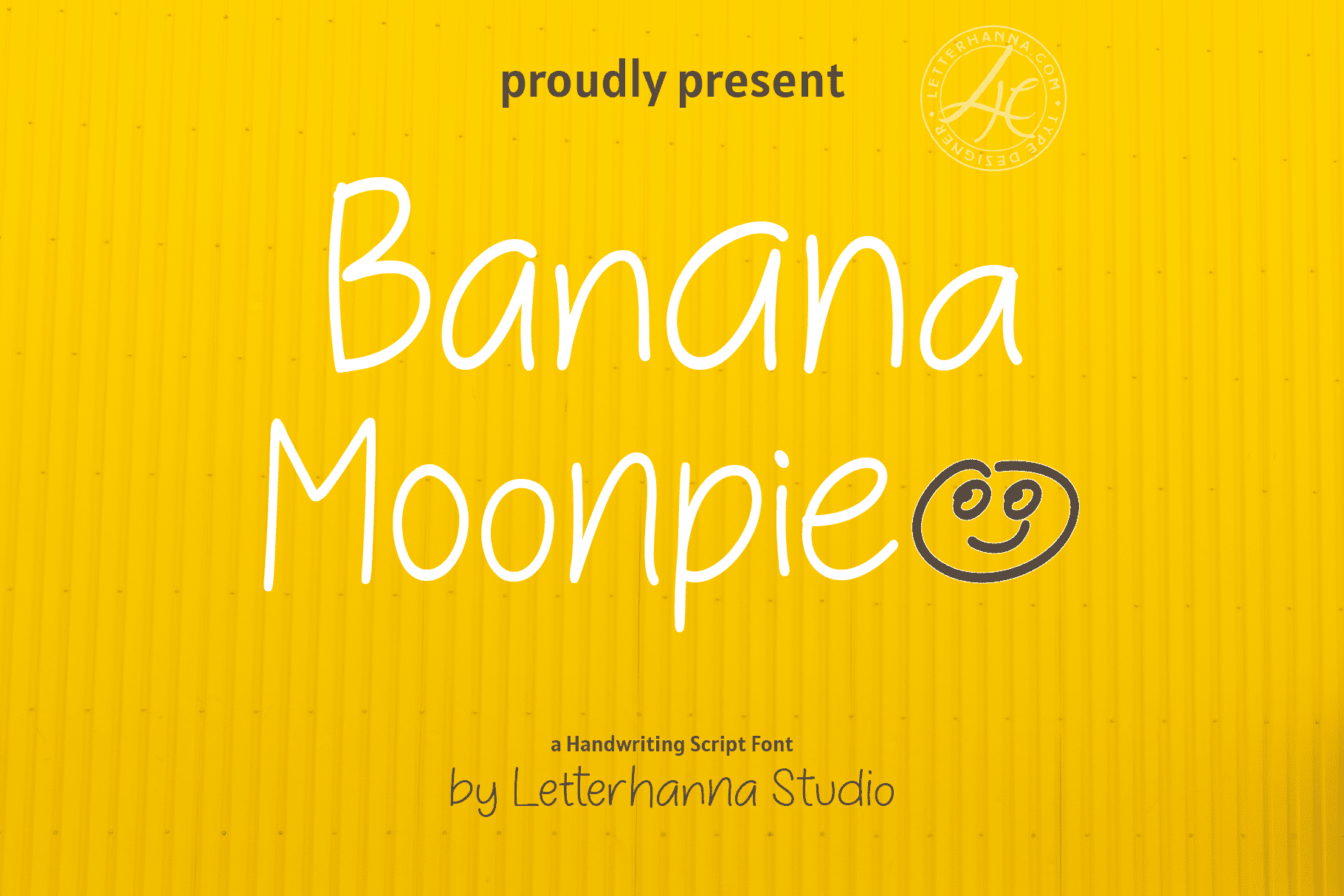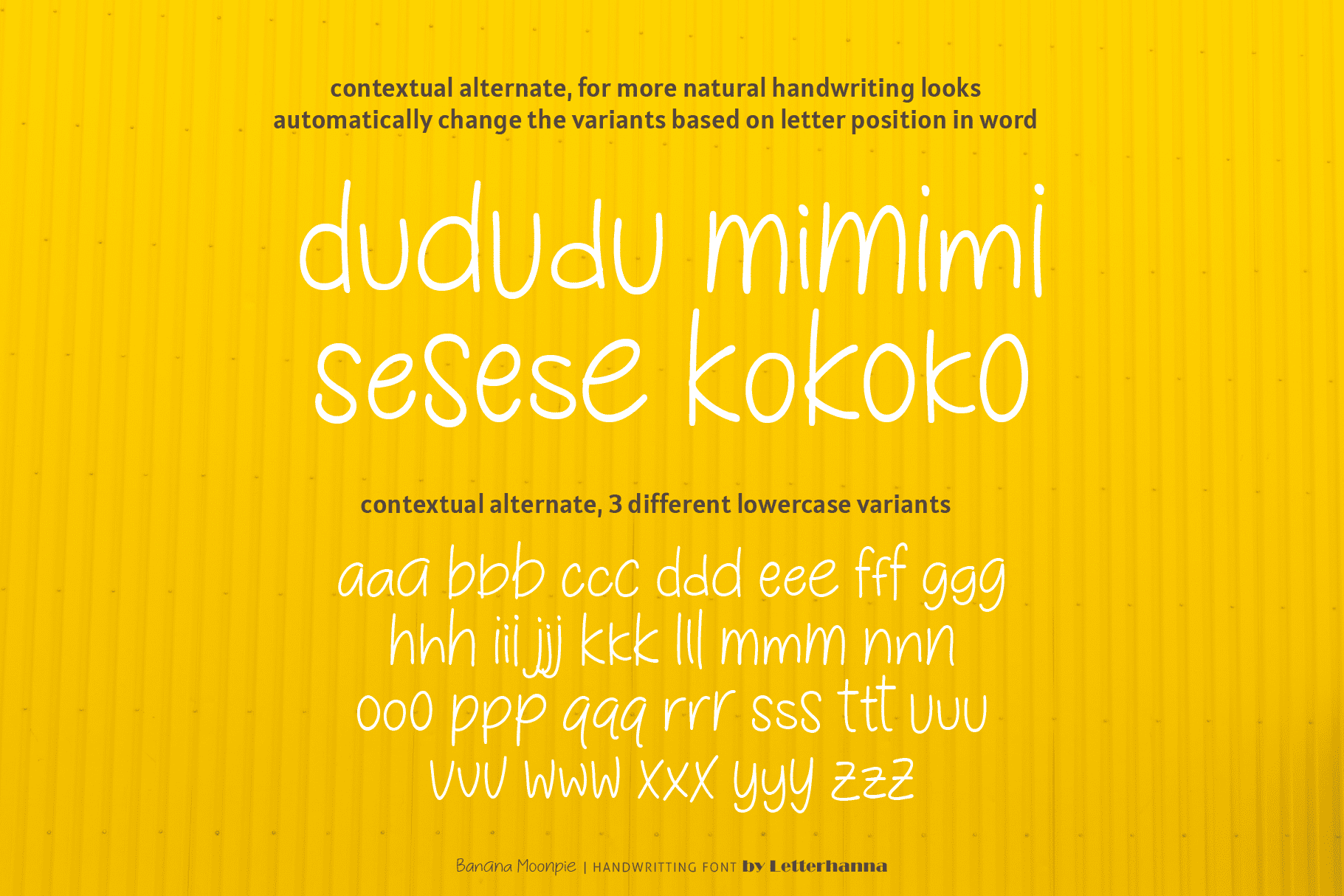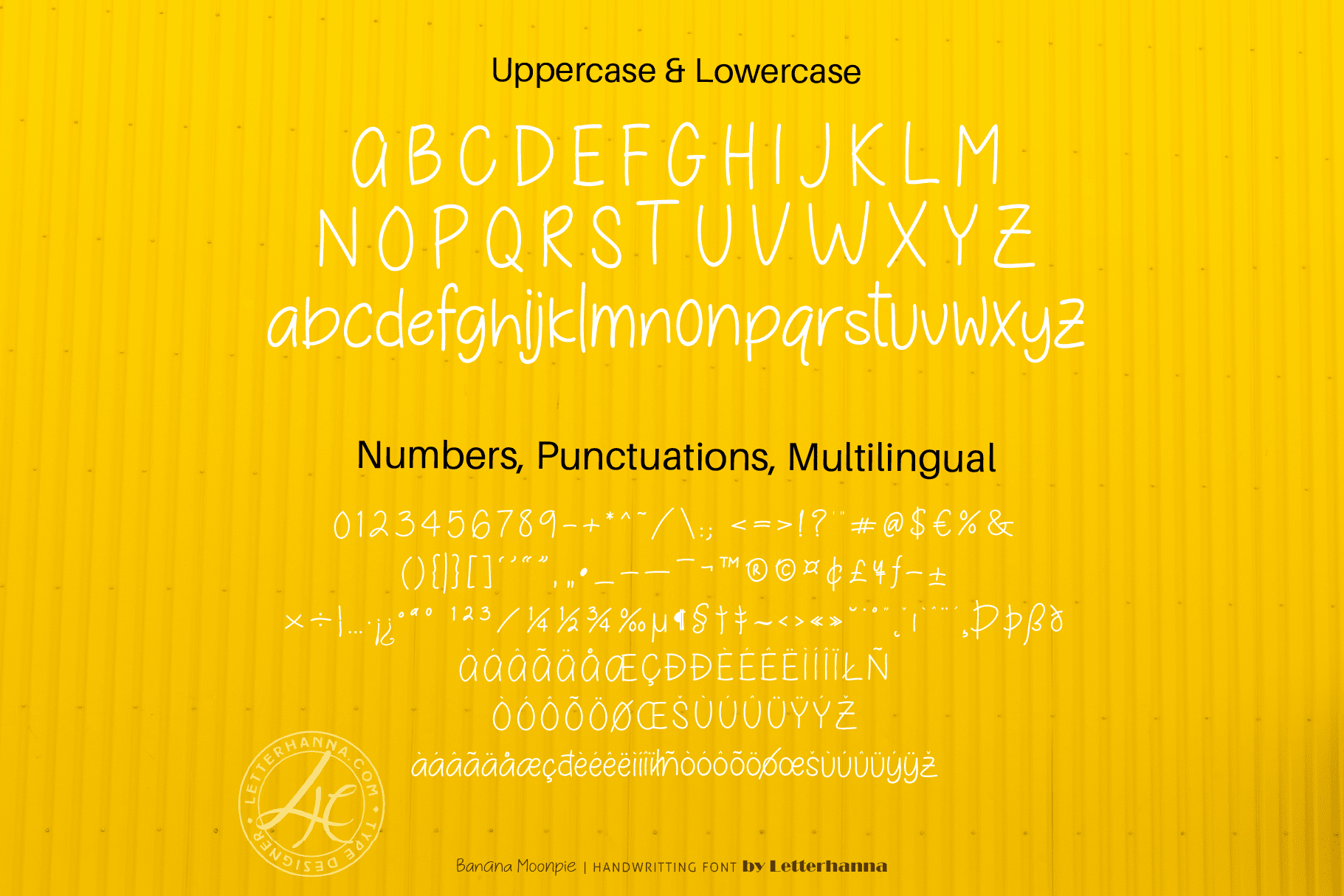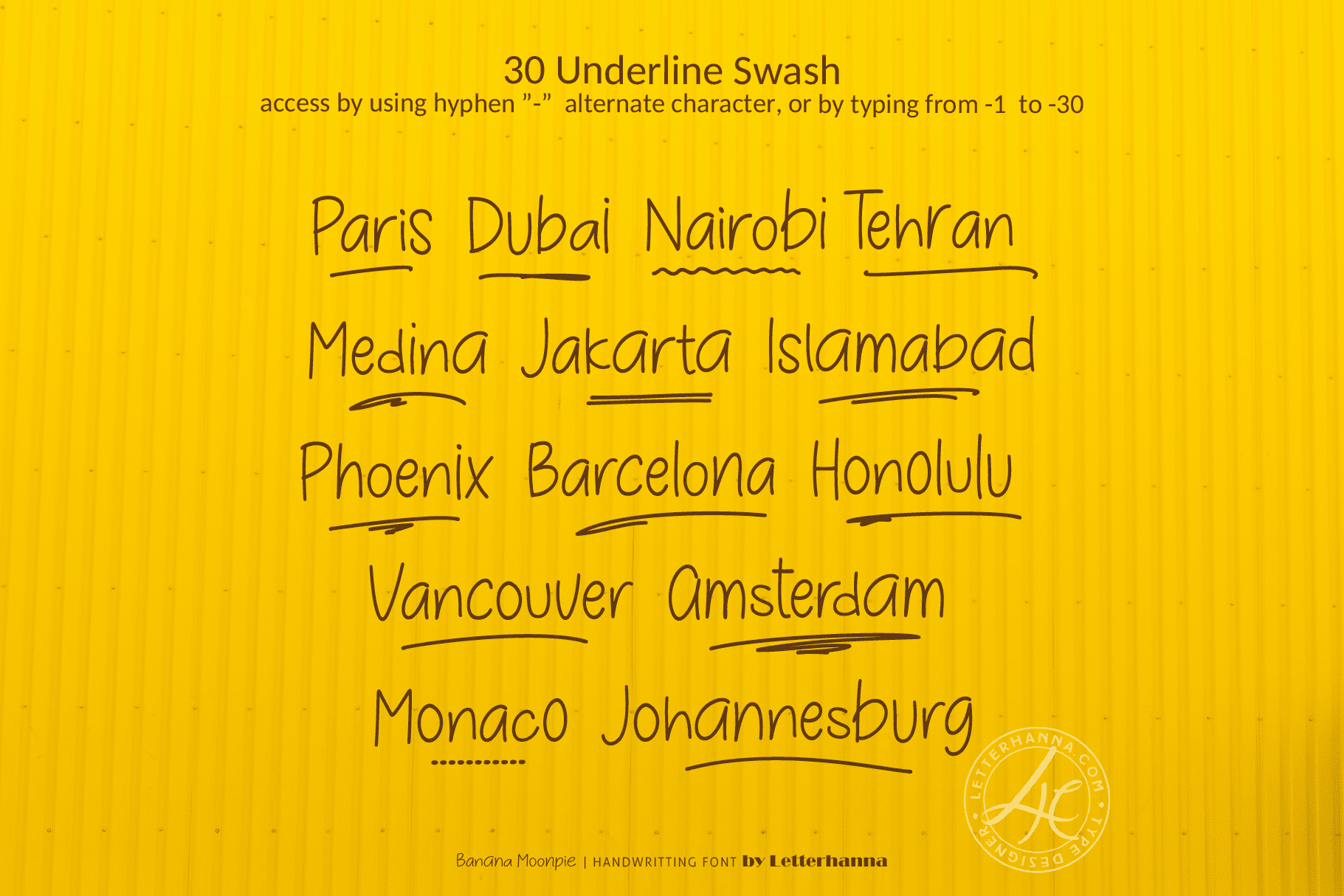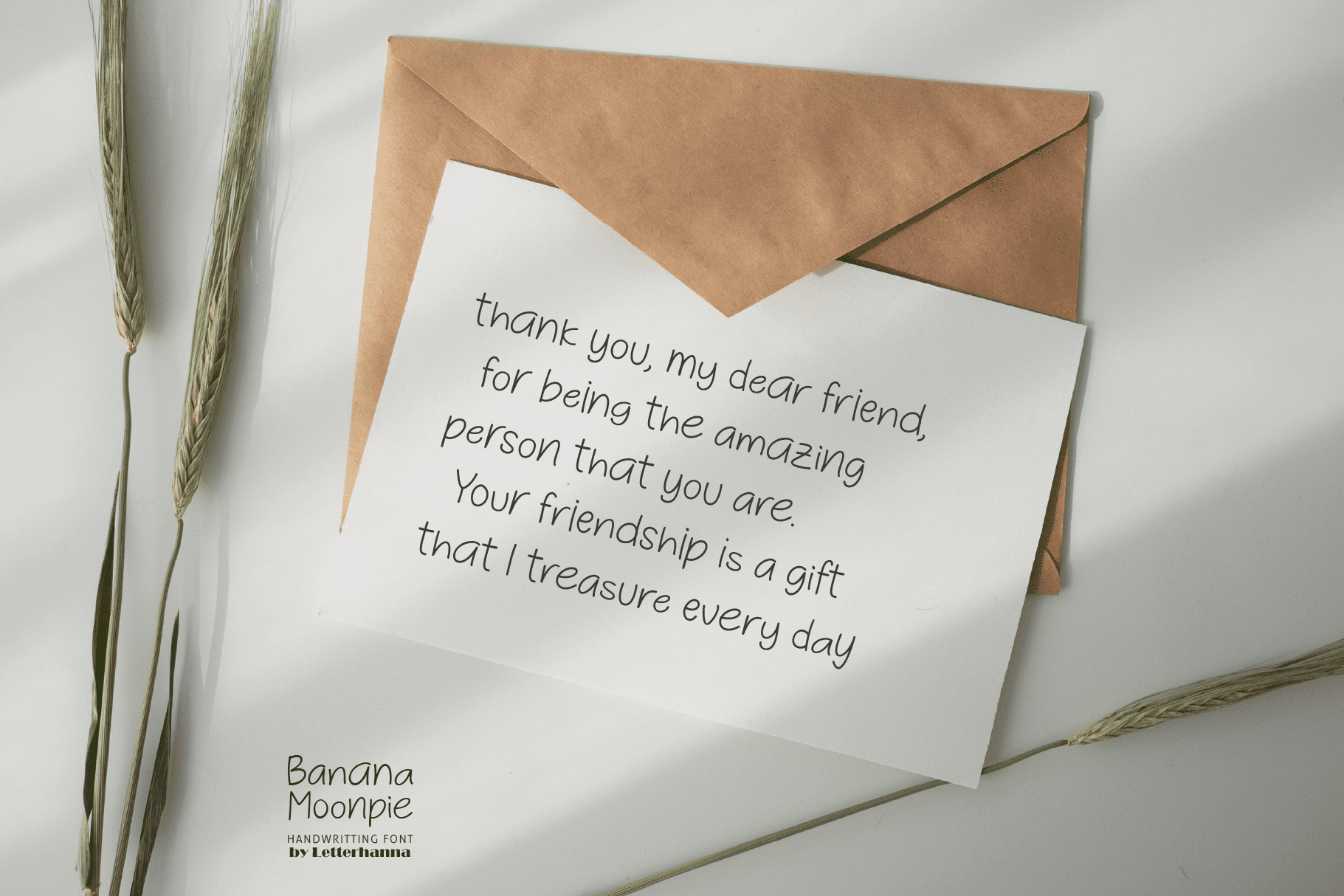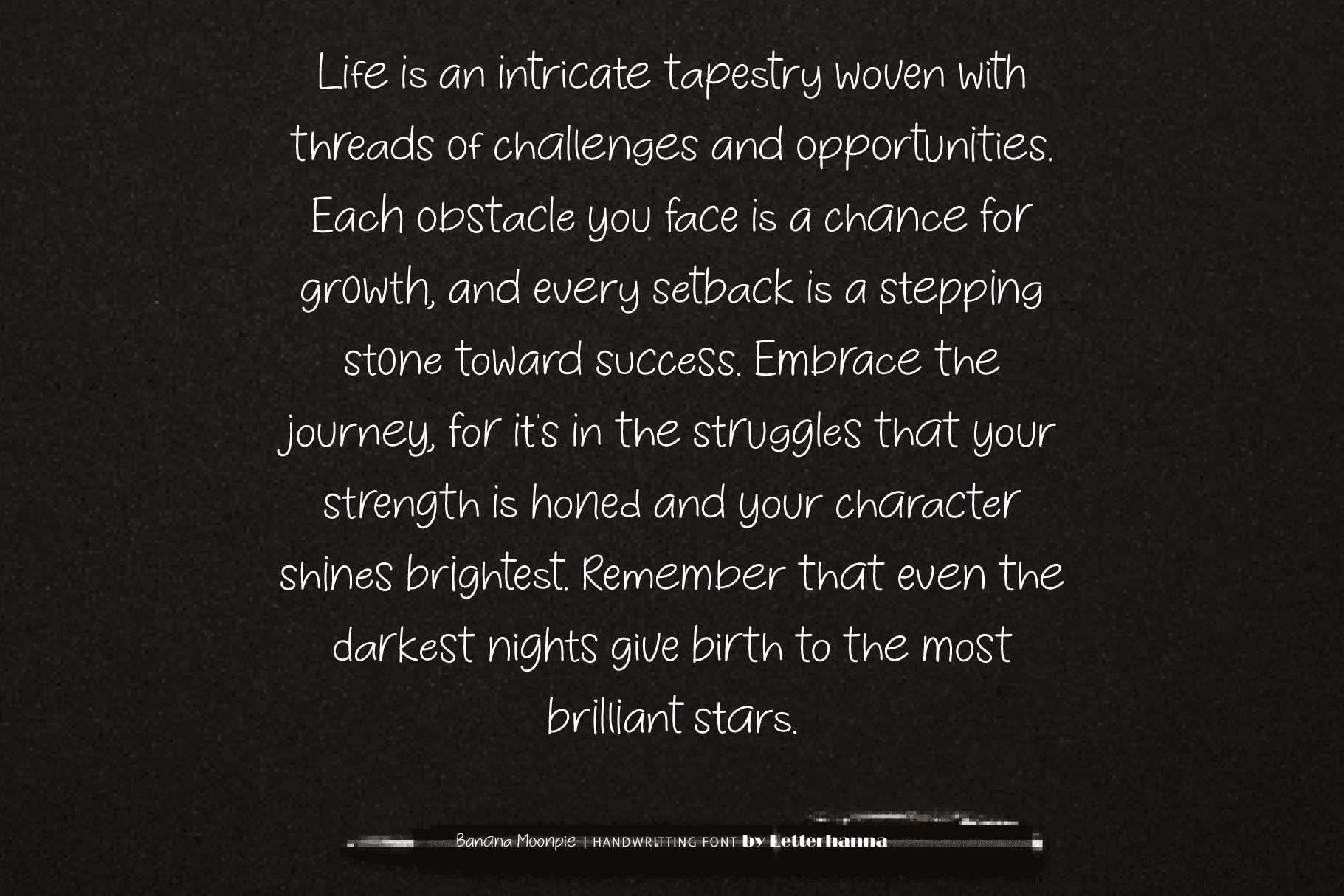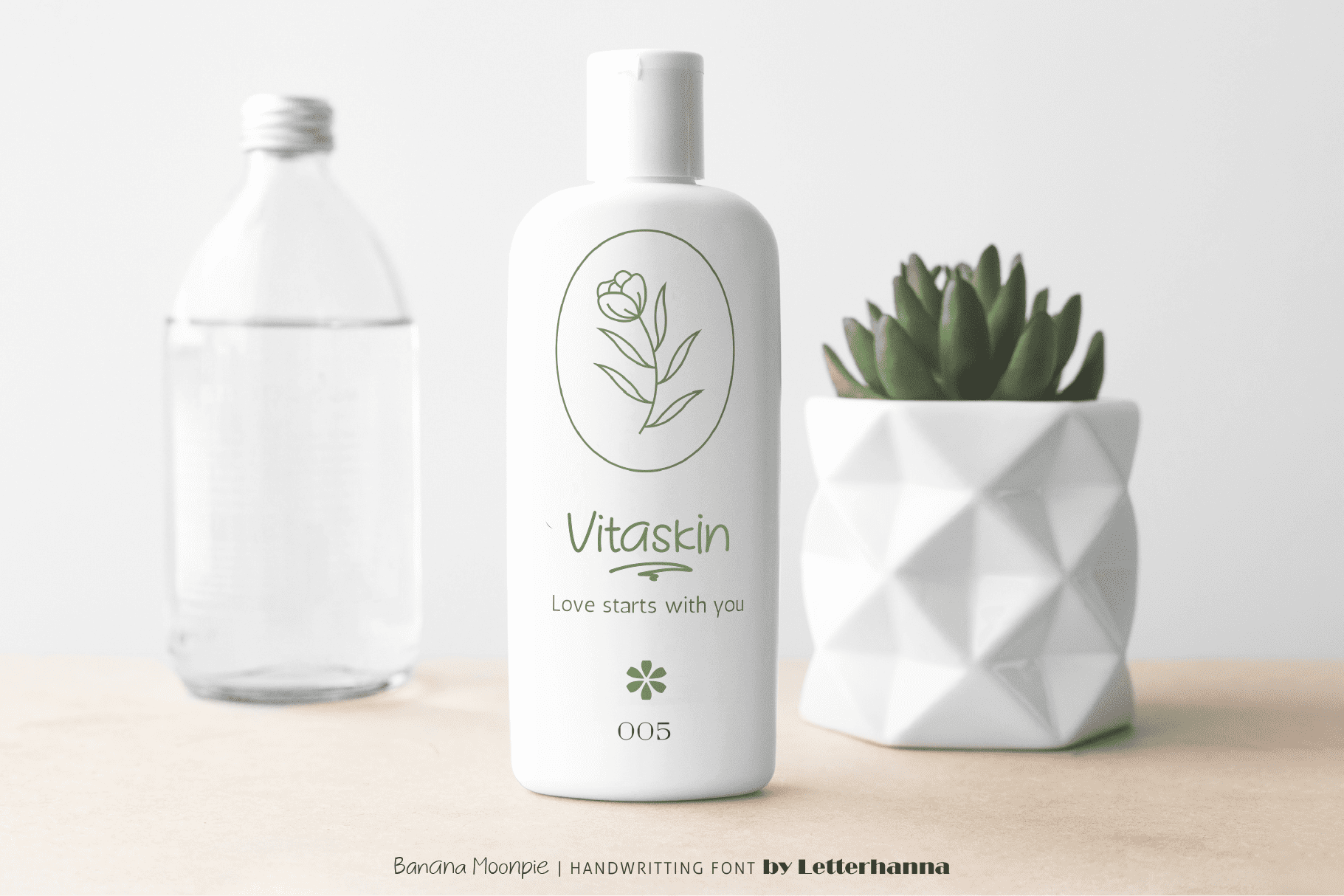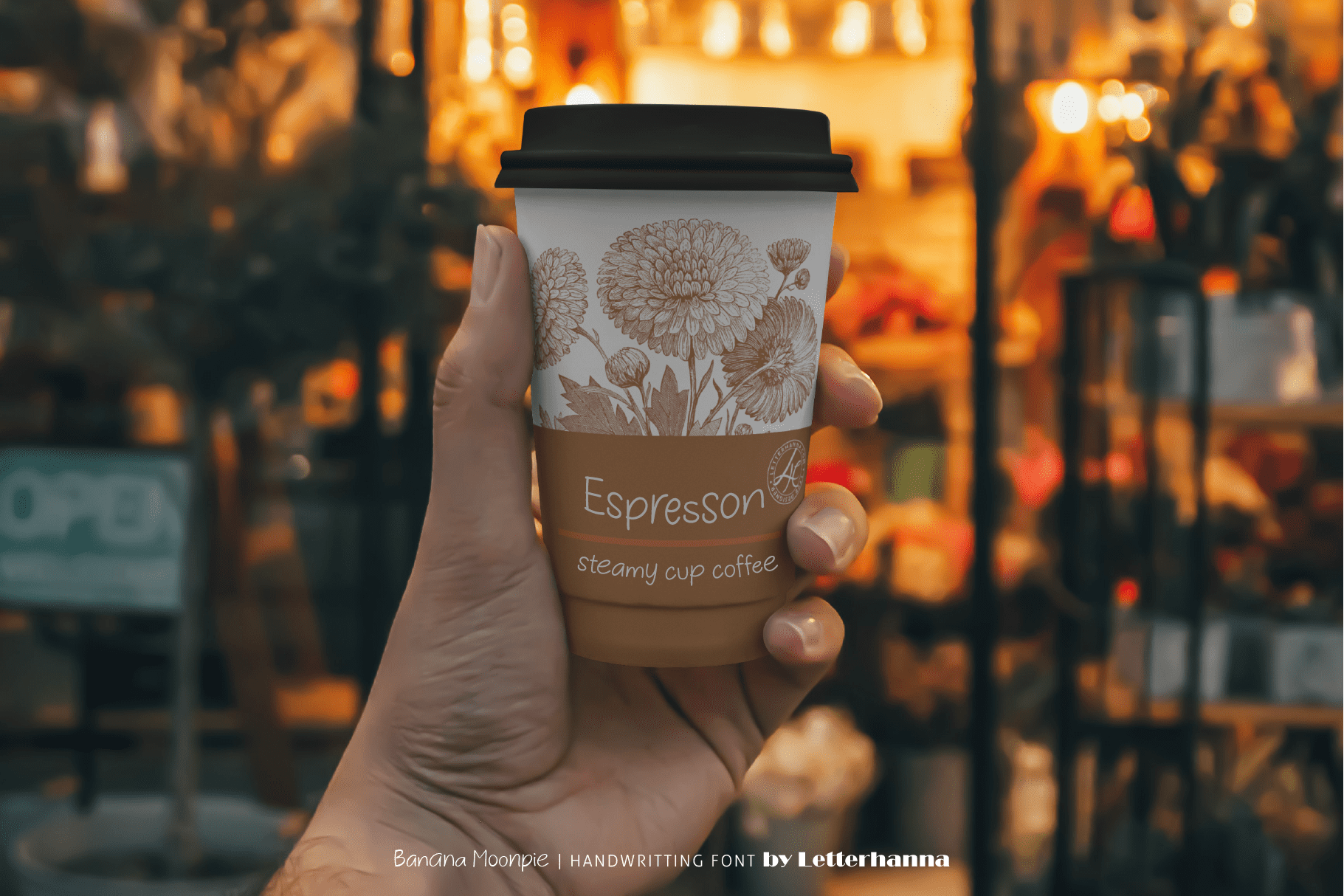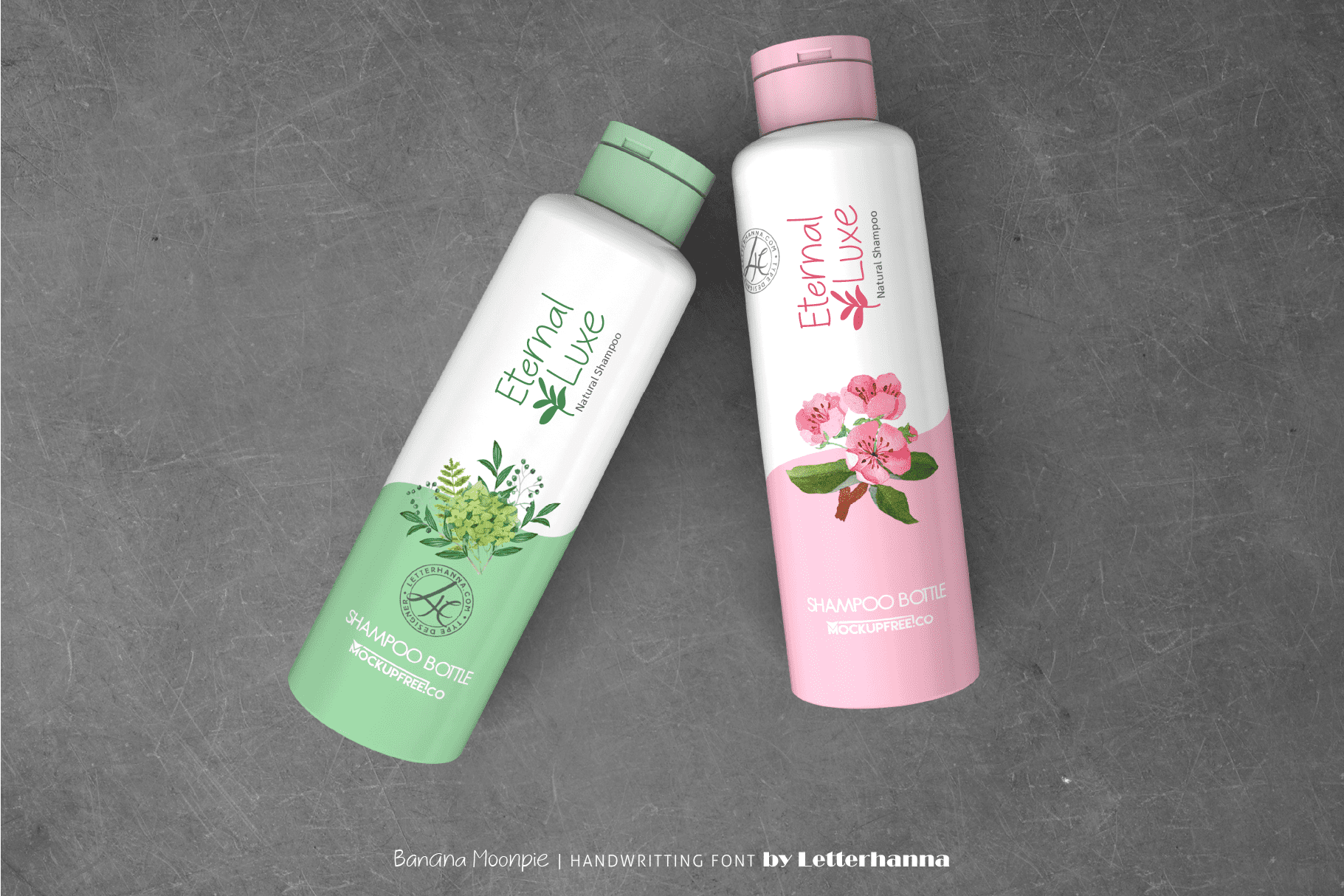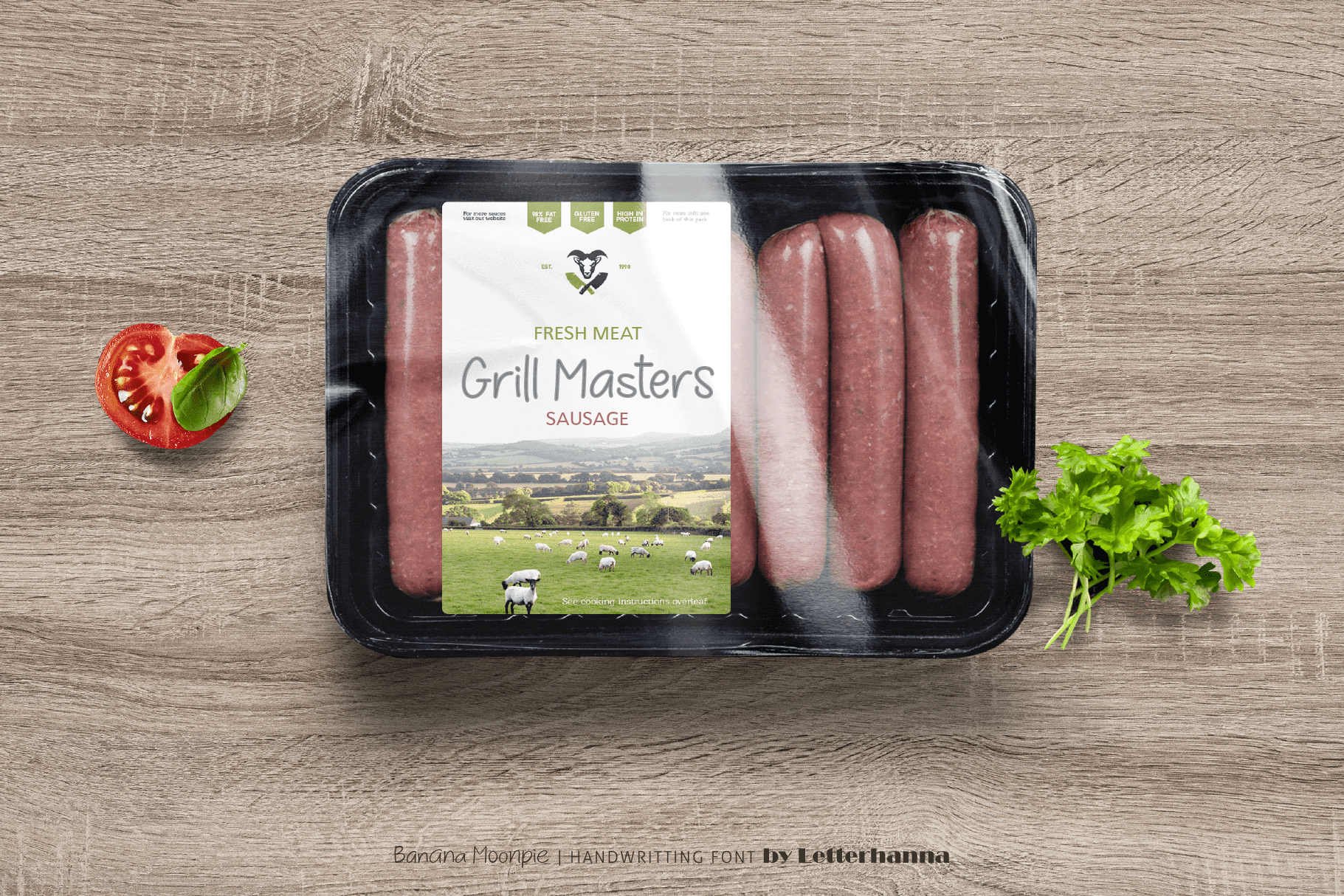
“Banana Moonpie” is a fresh and whimsical addition to the world of fonts. This unique sans serif handwritten font combines the casual charm of handwritten script with the clarity of a sans serif typeface, resulting in a delightful and versatile font that’s as fun as its name suggests.
Embrace the whimsy of “Banana Moonpie” and let it infuse your creative projects with charm and character. Whether you’re a designer, a content creator, or someone who enjoys adding a touch of playfulness to your work, this sans serif handwritten font is sure to become a delightful tool in your creative toolbox.
Banana Moonpie has 3 sets of lowercase variants to make the font more natural handwritten, each variants will automatically selected base on letter position in words using contextual alternates feature.
Ornaments can be access by type at symbol “at” then followed by number 1 to 26, for example type @4 or @13 etc to get various different ornaments.
Banana Moonpie Font is also PUA encoded which means you can access all of the glyphs and swashes with ease!
– 3 sets of lowercase variants
– contextual alternates
– Uppercase and Lowercase letters
– Numbering and Punctuations
– Multilingual Support
– Ligatures
– Underline swashes
– Ornaments
– Easy access swash just by using ligatures